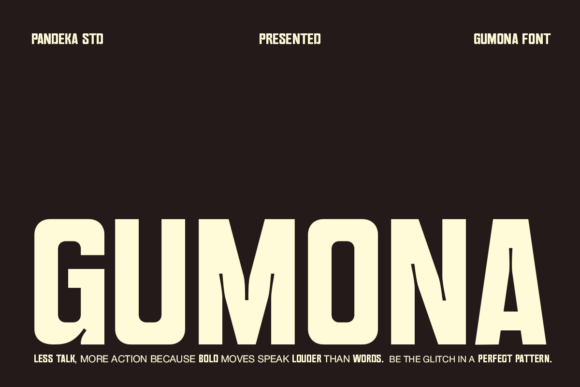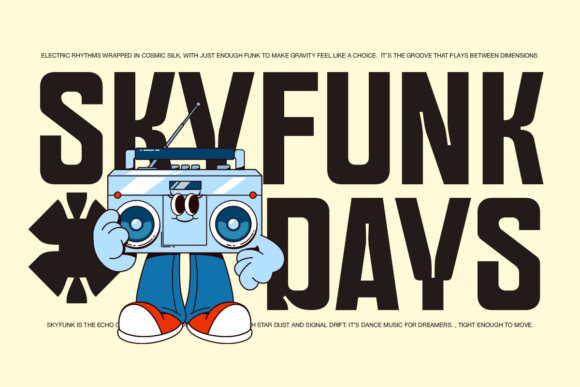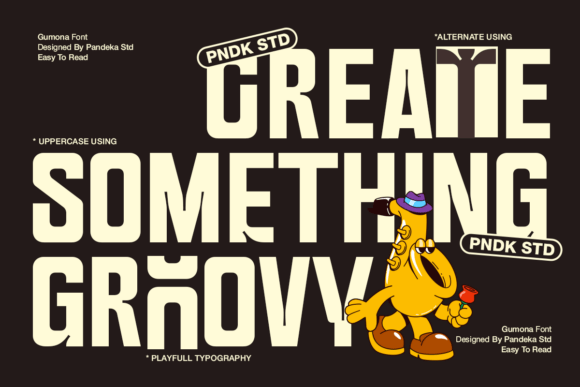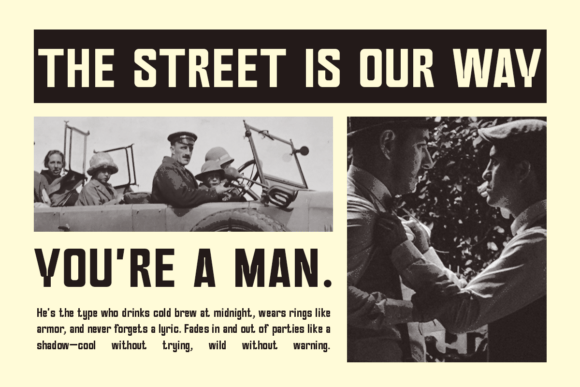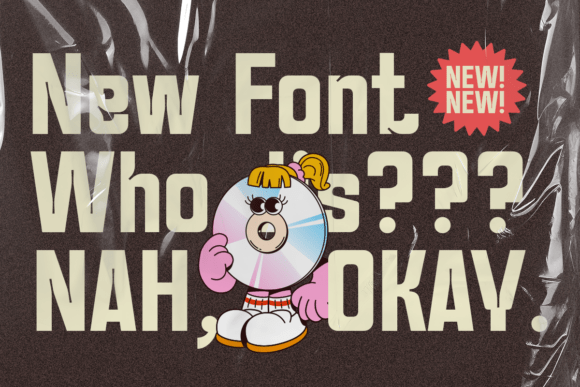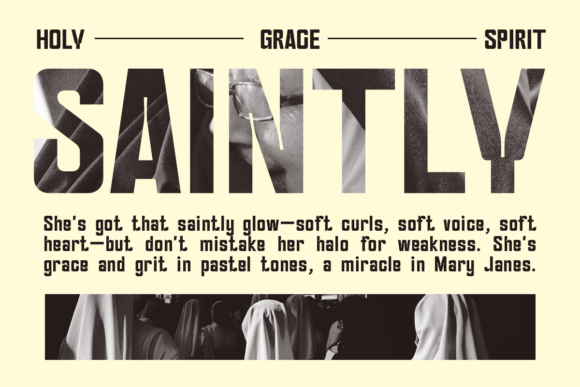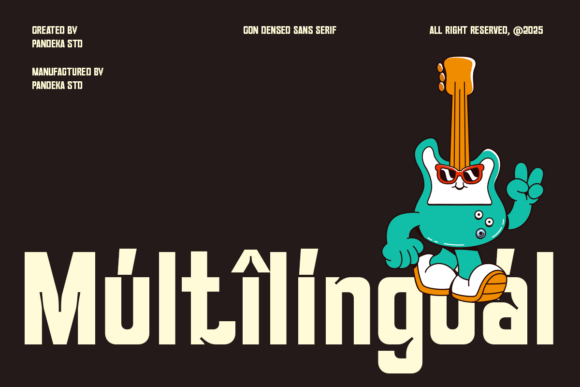
Creating a Statement with Typography
As designers, we’ve all been there – staring at a blank page, trying to convey the perfect message to capture our audience’s attention. The perfect font can be the game-changer, elevating your design from mere aesthetics to a powerful statement. For those looking to make a bold impression, meet Gumona Font – a condensed display typeface designed to cut through the noise.
Gumona Font is built for visual impact, thriving in high-contrast environments where its thick strokes, square corners, and tight letter spacing can shine. With its sharp structure and powerful silhouette, it’s the perfect choice for headlines, posters, sports branding, album covers, and magazine spreads. Whether you’re a seasoned designer or just starting out, Gumona Font is an invaluable tool in your creative arsenal, offering uppercase and lowercase, ligatures, and multilingual support to suit a wide range of expressive uses.
Gumona Font Key Features
- Font Family: Gumona is a sans-serif font family that includes 6 styles: Light, Regular, Medium, Bold, Extra Bold, and Black.
- Character Set: Gumona supports a wide range of languages, including Latin, Cyrillic, and Greek alphabets.
- Resolution: Designed to be highly legible at various resolutions, including 72 dpi, 96 dpi, and 300 dpi, making it suitable for both digital and print media.
- Unique Characteristics: Gumona features a unique blend of modern and geometric elements, giving it a distinctive look that is both contemporary and timeless.
- Font Size: Gumona is available in 6 font sizes, ranging from 10 points to 72 points, allowing for flexibility in font scaling and customization.
Gumona Font Review
I recently had the chance to work with the Gumona font, and I must say it’s been an interesting experience. Here’s my honest review.
- ✨ Elegant and refined design: Gumona font has a sophisticated feel to it, making it perfect for high-end projects or corporate branding.
- ✨ Good legibility: The font is clear and easy to read, even at smaller sizes, making it suitable for body text and paragraphs.
- ✨ Unique character set: Gumona font includes a range of unique characters and glyphs that add a touch of personality to your designs.
- ⚠️ Limited font weights: Gumona font only comes in a few weights, which can make it limiting for projects that require a lot of font variations.
- ⚠️ Not suitable for casual projects: Gumona font’s formal design may not be the best fit for more relaxed or playful projects.
Overall, Gumona font is a solid choice for projects that require a touch of elegance and sophistication. While it has its limitations, it’s a great option for those who want a refined and polished look.
Tips for Getting the Most Out of Gumona Font
1. Experiment with different font sizes and styles to create visual interest.
2. Use the Gumona font in combination with other fonts to create a unique look.
3. Pay attention to kerning and letter spacing to ensure clean and readable text.
The Gumona font is perfect for:
1. Creating modern and sleek designs.
2. Adding a touch of elegance to your presentations and documents.
3. Creating custom typography for branding and marketing materials.